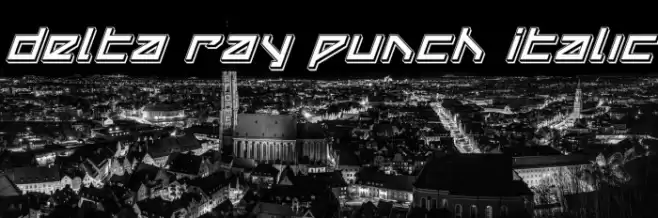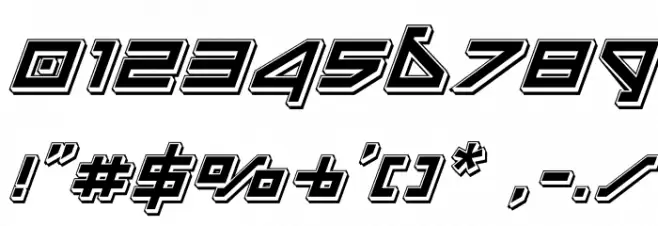
Delta Ray Punch Italic Font
Delta Ray Punch Italic Description
This font features a dynamic and futuristic style with a strong italic slant, giving it a sense of motion and energy. The characters are outlined with a bold, double-layered effect, creating a three-dimensional appearance. The angular and geometric shapes of the letters contribute to its modern and tech-inspired aesthetic. The font maintains a consistent stroke width throughout, enhancing its bold presence. The spacing between characters is tight, which adds to its compact and cohesive look. This font is ideal for projects that require a striking and contemporary design.
A bold, italic, futuristic font with a three-dimensional, geometric style from Uncategorized fonts.
- Proposed Projects: Ideal for tech-related branding, video game titles, sci-fi movie posters, and modern digital interfaces.
- Character Spacing: Tight
- Overall Style: Futuristic, Modern